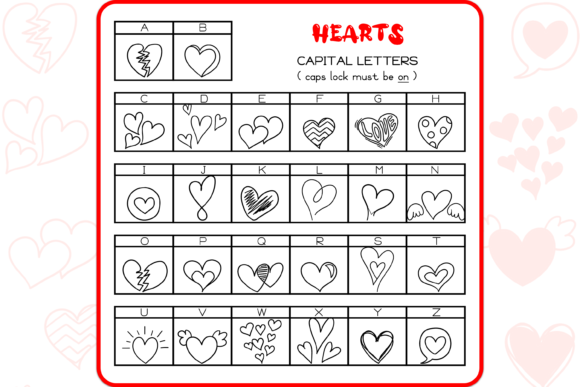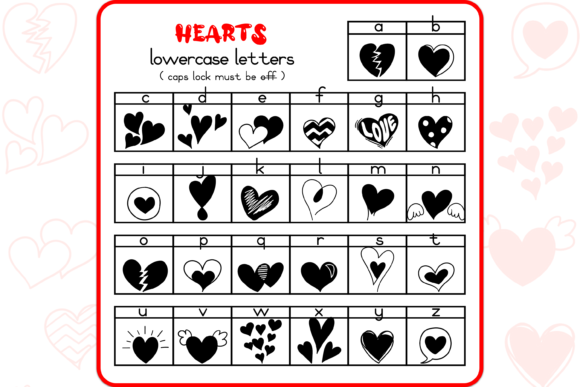
About Heart Dingbats Font
Absolutely! “Hearts” is a delightful dingbats font that brings a touch of love and romance to your designs. With its collection of hand-drawn heart doodles, this font offers versatile options for incorporating heartfelt elements into your projects. Here are some ways you can utilize the “Hearts” font:
1. Borders and Dividers: Use the heart doodles as decorative borders or dividers to add a touch of love and warmth to your designs. These charming hearts can create a whimsical and romantic frame around your content.
2. Frames: Incorporate the heart doodles as frames around images or text to highlight and celebrate love-related content. Whether you’re designing wedding invitations, anniversary cards, or Valentine’s Day promotions, the heart frames will add a delightful touch.
3. Background Elements: Create playful and love-themed backgrounds or patterns using the heart doodles to infuse your designs with a sense of romance. Whether it’s a digital backdrop or a printed surface, the heart-filled patterns can create an enchanting atmosphere.
4. Emphasize Text: Use the heart doodles to highlight important text or headings, especially when conveying messages of love and affection. Placing a heart next to key phrases or titles can evoke a warm and emotional response from your audience.
5. Greeting Cards and Invitations: The “Hearts” font is perfect for designing greeting cards, invitations, and other stationery items. Whether it’s for birthdays, weddings, or any occasion that celebrates love, incorporating the heart doodles will add a playful and heartfelt touch.
6. Social Media Posts: Enhance your social media posts by incorporating the heart doodles. Whether you’re sharing love quotes, announcing special promotions, or simply spreading positivity, the hearts will help convey your message with charm and warmth.
7. Scrapbooking and Crafts: If you’re into scrapbooking or other craft projects, the heart doodles from the “Hearts” font can be a wonderful addition. Use them to embellish photos, create cute borders, or add a loving touch to your handmade creations.
8. Logo Design: If your brand or business focuses on love, relationships, or any heartwarming themes, consider incorporating the heart doodles from the “Hearts” font into your logo design. They can add a playful and memorable element to your brand identity.
Remember to experiment with different sizes, orientations, and colors of the heart doodles to create unique and eye-catching designs. The hand-drawn style of “Hearts” adds a whimsical and personalized touch to your creations, making them stand out with love and affection.
In summary, “Hearts” is a delightful dingbats font that allows you to infuse your designs with love and romance. Whether you’re using the heart doodles as borders, dividers, frames, or exploring other creative possibilities, they are sure to add a charming and heartfelt touch. Let your creativity soar and spread love with the hand-drawn heart doodles from the “Hearts” font!